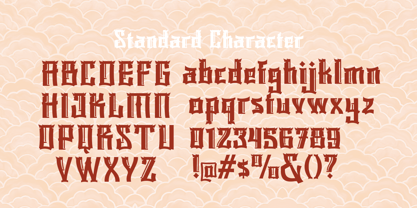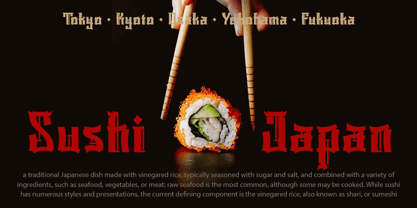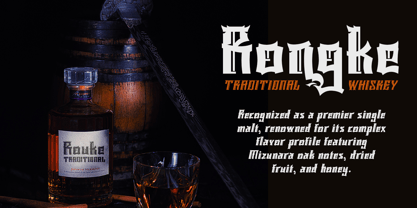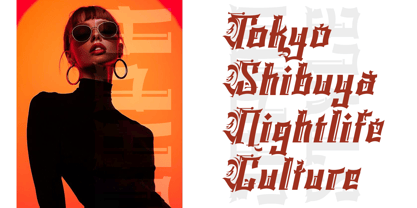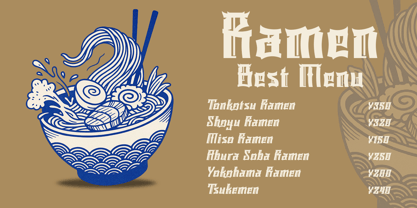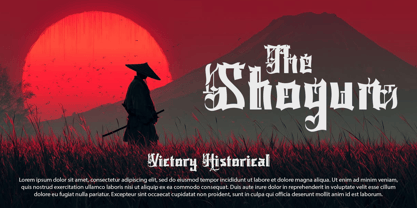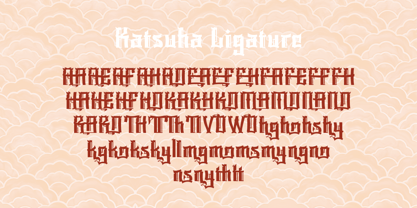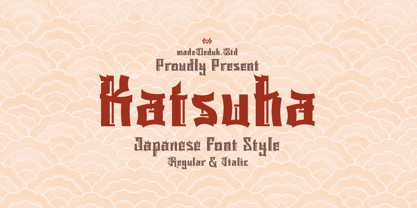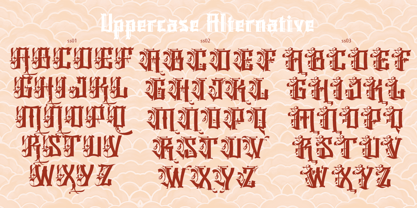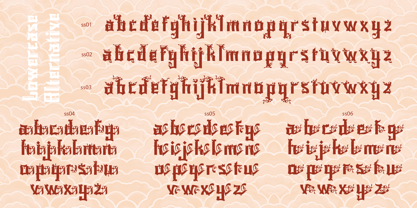
Katsuha
by madeDeduk
The Katsuha Font Family was designed by madededuk and published by madeDeduk. Katsuha contains 2 styles and family package options. More about this family
Introducing Katsuha Japanese font style, this font features a decorative kanji style with sharp, pointed, and distinctive letterforms. Each character is designed with strong angles and detailed edges, creating a dramatic, mysterious, and slightly classic appearance. Its unique structure makes the font stand out easily and attract attention, especially when used for titles or as the main element in a design. This style is well suited for posters, fantasy designs, and other creative projects that require a strong and artistic visual identity. The design inspired by Japanese typographic aesthetics, which often convey a sense of legend, strength, and epic storytelling. The bold and decorative shapes give the impression of something coming from a fantasy world or an ancient tale filled with mystery. Because of its powerful and unique visual character, this font is highly suitable for game titles, fantasy-themed designs, or typographic works that aim to present a dramatic atmosphere with a subtle touch of Japanese inspiration.
Designers: madededuk
Foundry: madeDeduk